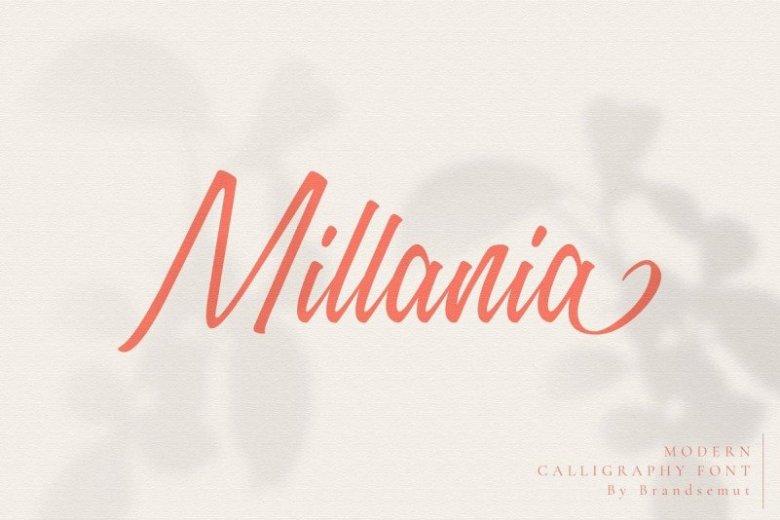
Millania Script Font Free
Millania Script Font is a bold script, with a strong and masculine style that is equipped with some unique ligatures and alternates so that it can provide an interesting look. It was built with OpenType features and includes ligatures, numbers, punctuation, alternate, swashes and it also multilingual support.
Millania script fonts let you create wedding invitations, wedding stationery, DIY, wrappers, fashion textile patterns, textures, posters, wedding decorations, gifts, quotes, blogs, wallpapers, stickers, etc.